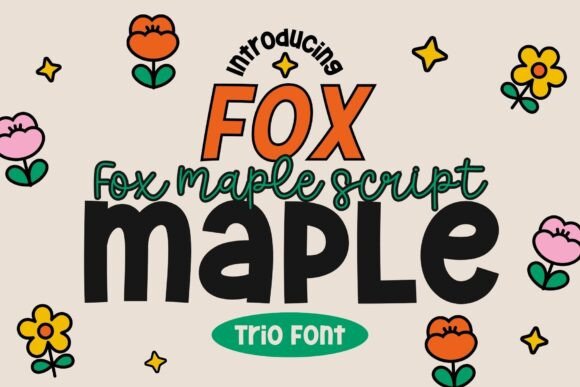
Introducing Fox Maple Font: The Ultimate Trio of Cute and Playful Handwritten Fonts
In the world of typography, fonts play a crucial role in conveying the tone and personality of a brand or project. When it comes to creating eye-catching headlines, t-shirt prints, banners, product labels, and more, the right font can make all the difference. This is where Fox Maple Font comes in – a trio of cute and playful handwritten fonts that are sure to bring a fun and captivating touch to any project.
Vibrant and Energetic Design
Fox Maple Font boasts a vibrant and energetic design that is perfect for projects that require a bold and playful personality. The font’s unique and quirky style makes it stand out from the crowd, ensuring that your project grabs attention and leaves a lasting impression.
Endless Possibilities: Where to Use Fox Maple Font
One of the best things about Fox Maple Font is its versatility. This amazing font can be used in a variety of contexts, including:
- Headlines and Titles: Create stunning headlines and titles that demand attention with Fox Maple Font’s bold and playful design.
- T-Shirt Prints: Add a fun and quirky touch to your t-shirt designs with this adorable font.
- Banners and Posters: Make your banners and posters pop with Fox Maple Font’s vibrant and energetic style.
- Product Labels: Give your product labels a personality boost with this cute and playful font.
- Social Media Graphics: Elevate your social media graphics with Fox Maple Font’s unique and captivating design.
The Benefits of Using Fox Maple Font
So, why choose Fox Maple Font for your next project? Here are just a few benefits of using this amazing font:
- Unique and Playful Style: Fox Maple Font offers a fresh and playful take on traditional typography, ensuring your project stands out from the crowd.
- Versatility: This font can be used in a wide range of contexts, from headlines and titles to t-shirt prints and product labels.
- Ease of Use: Fox Maple Font is easy to read and understand, making it perfect for projects that require clear communication.
- Customization: With Fox Maple Font, you can easily customize your text to fit your project’s specific needs and style.
The Design Process Behind Fox Maple Font
Creating a font like Fox Maple requires a deep understanding of typography, design, and the needs of creatives. The designers behind Fox Maple Font aimed to create a font that is not only visually appealing but also highly versatile and easy to use.
The design process involved:
- Research and Inspiration: The designers gathered inspiration from various sources, including handwritten fonts, playful typography, and modern design trends.
- Sketching and Refining: The team sketched out multiple font styles, refining each one to ensure they met the desired criteria of being cute, playful, and energetic.
- Digitalization: The chosen font styles were then digitalized, ensuring they were scalable and compatible with various design software.
- Testing and Feedback: The font was tested in different contexts, and feedback was gathered to make any necessary adjustments.
Tips and Tricks for Getting the Most Out of Fox Maple Font
To maximize the impact of Fox Maple Font, here are some tips and tricks to keep in mind:
- Experiment with Colors: Fox Maple Font looks great in bold and bright colors, so don’t be afraid to experiment and find the perfect hue for your project.
- Mix and Match: Combine Fox Maple Font with other fonts to create a unique and eye-catching typography combination.
- Adjust Font Size: Play around with different font sizes to add emphasis and create visual hierarchy in your design.
- Add Effects: Consider adding subtle effects, such as shadows or textures, to give your text an extra boost of personality.
In conclusion, Fox Maple Font is a trio of cute and playful handwritten fonts that are sure to bring a fun and captivating touch to any project. With its vibrant and energetic design, versatility, and ease of use, this font is perfect for creatives looking to add a bold and playful personality to their work. Whether you’re designing headlines, t-shirt prints, banners, or product labels, Fox Maple Font is an excellent choice.